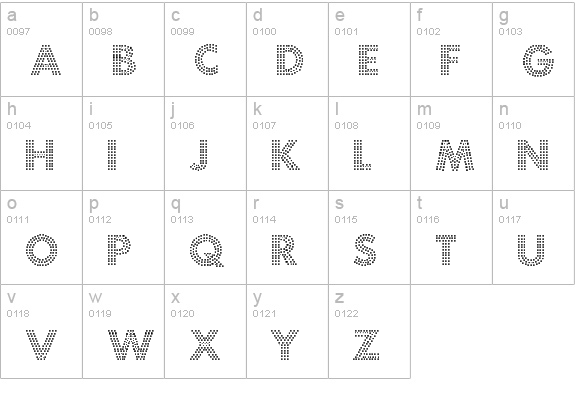
FortunaDotLighter Font Details
FortunaDotLighter is a sophisticated and elegant font that exudes a sense of modernity and style. Its clean lines and geometric shapes make it perfect for a wide range of design projects, from branding to editorial design. This font strikes the perfect balance between professionalism and creativity, making it a versatile choice for any designer. The best part? FortunaDotLighter is available for free download at FontsMarket.com. This means you can easily add this stunning font to your collection without any cost. Whether you're working on a personal project or a client's design, FortunaDotLighter is sure to elevate your work to the next level. Don't miss out on the opportunity to enhance your designs with this beautiful font – download it for free today!